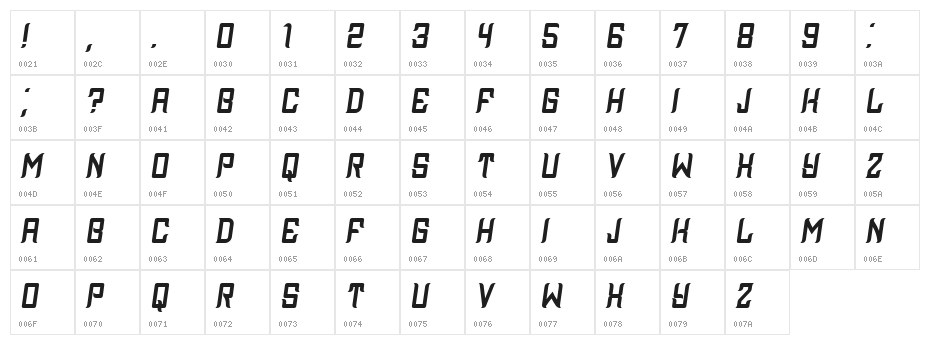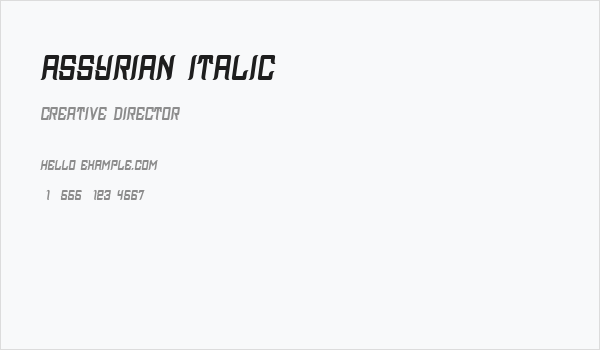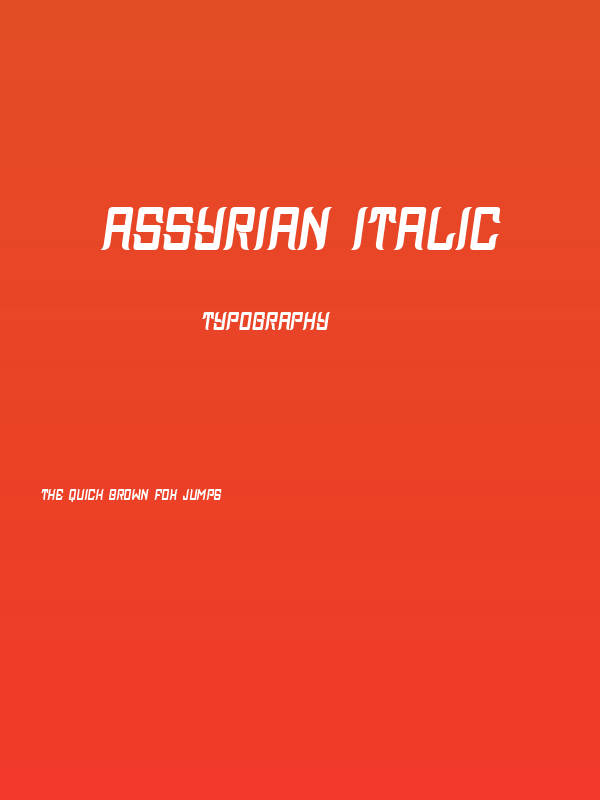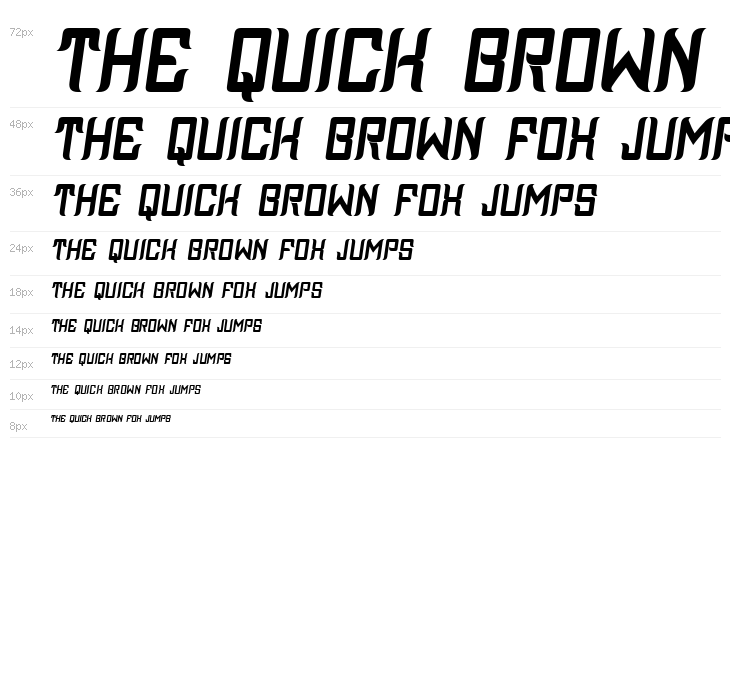
Assyrian Italic Font
Assyrian Italic Description
This font features a bold and dynamic italic style, characterized by its sharp angles and strong presence. The letters are slightly slanted, giving a sense of motion and energy. The strokes are thick and consistent, providing a robust and impactful appearance. The overall design is modern and sleek, with a touch of aggression due to its angular cuts and geometric shapes. The numbers and punctuation follow the same stylistic cues, ensuring uniformity across all characters. This font is suitable for projects that require a bold statement and a contemporary look.
| Proposed Projects | Ideal for sports branding, action movie posters, dynamic logos, and modern advertising campaigns. |